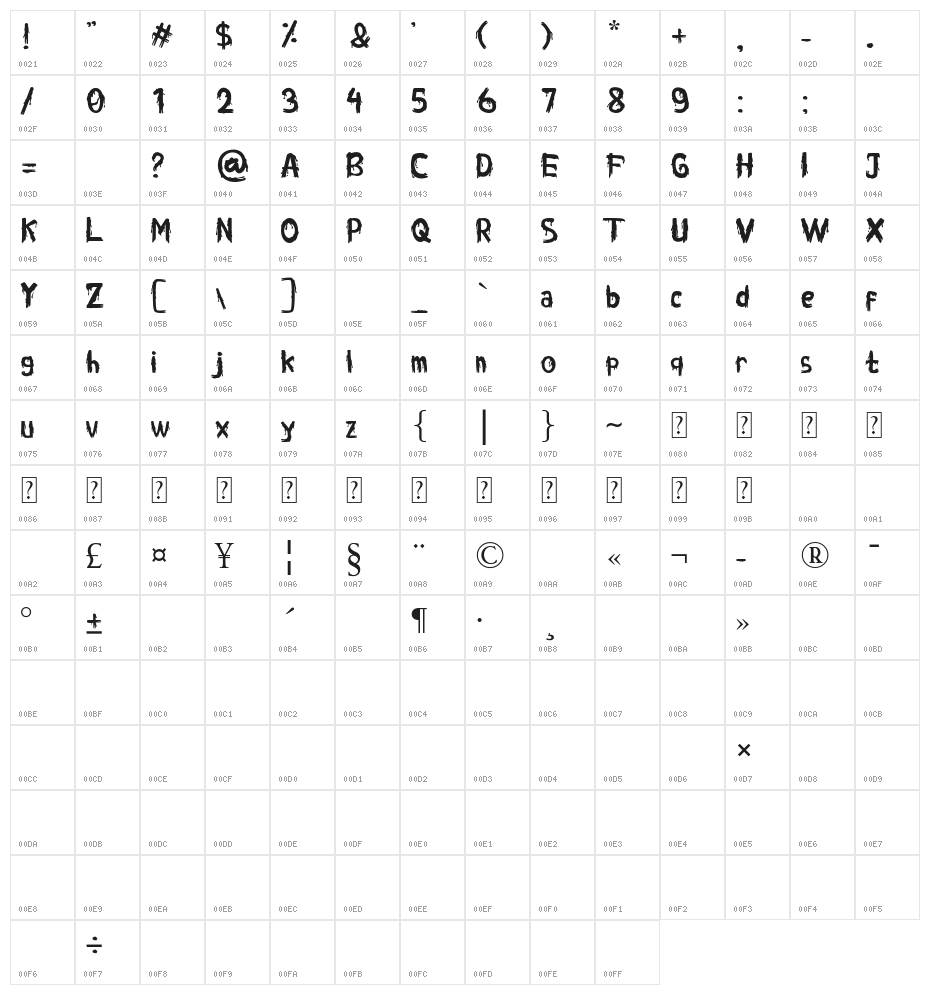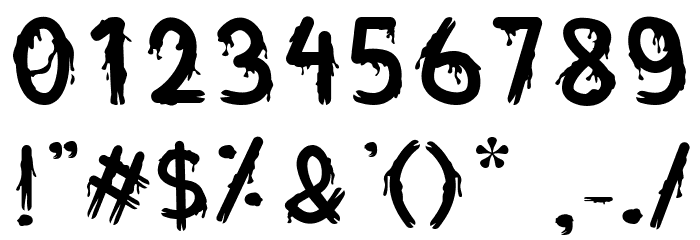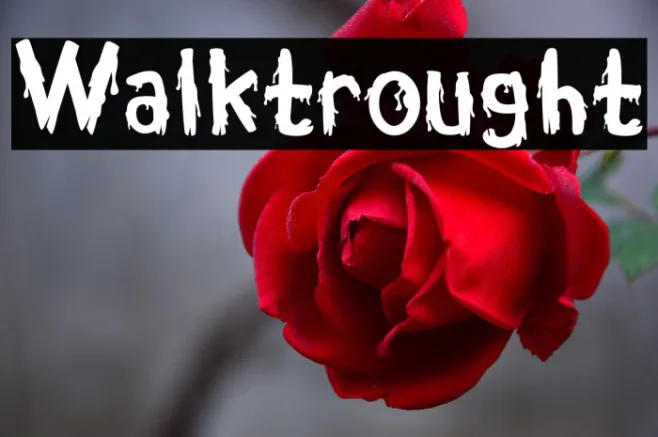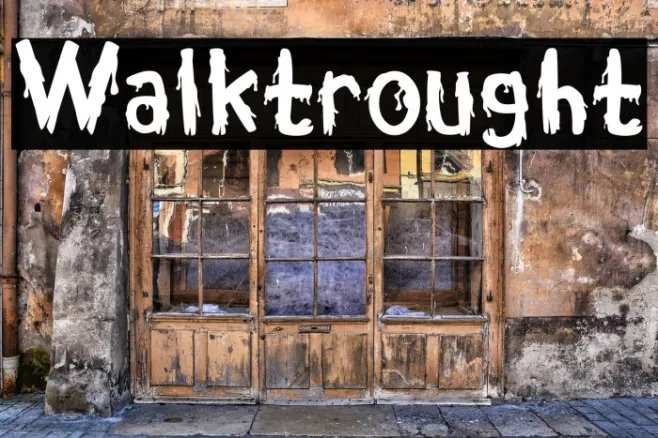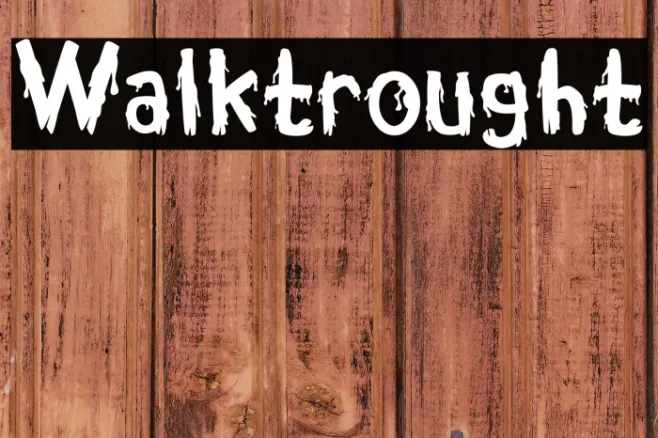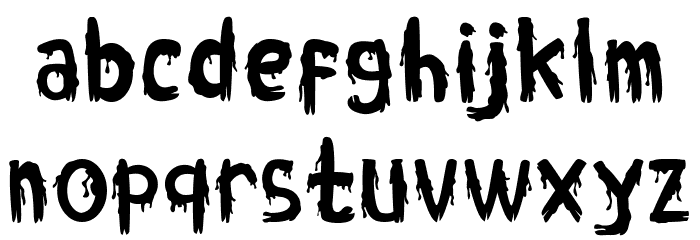
Walktrought Font
Walktrought Description
This font features a bold, distressed style with a hand-drawn appearance. The characters have an uneven, jagged edge, giving them a dynamic and energetic feel. The uppercase and lowercase letters maintain a consistent height, while the numbers and special characters follow the same rugged aesthetic. The font's unique texture and irregular strokes make it stand out, ideal for projects that require a bold statement. Its artistic flair is reminiscent of graffiti or horror-themed designs, making it suitable for creative and unconventional uses.
| Proposed Projects | Ideal for horror-themed posters, edgy branding, graffiti art, and creative event invitations. |